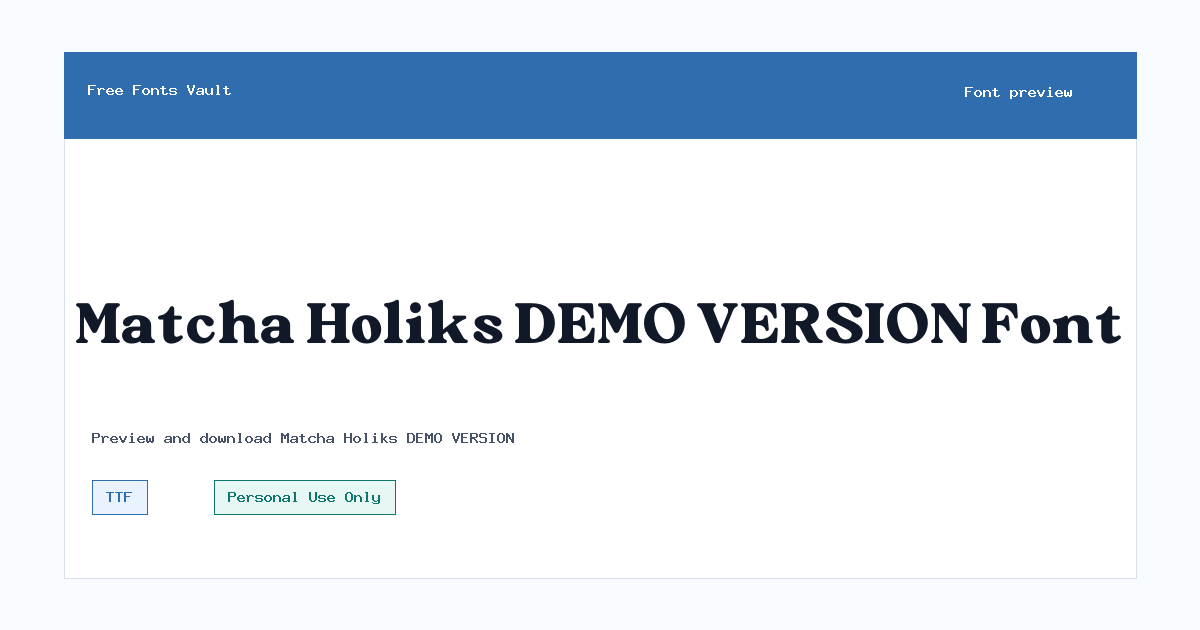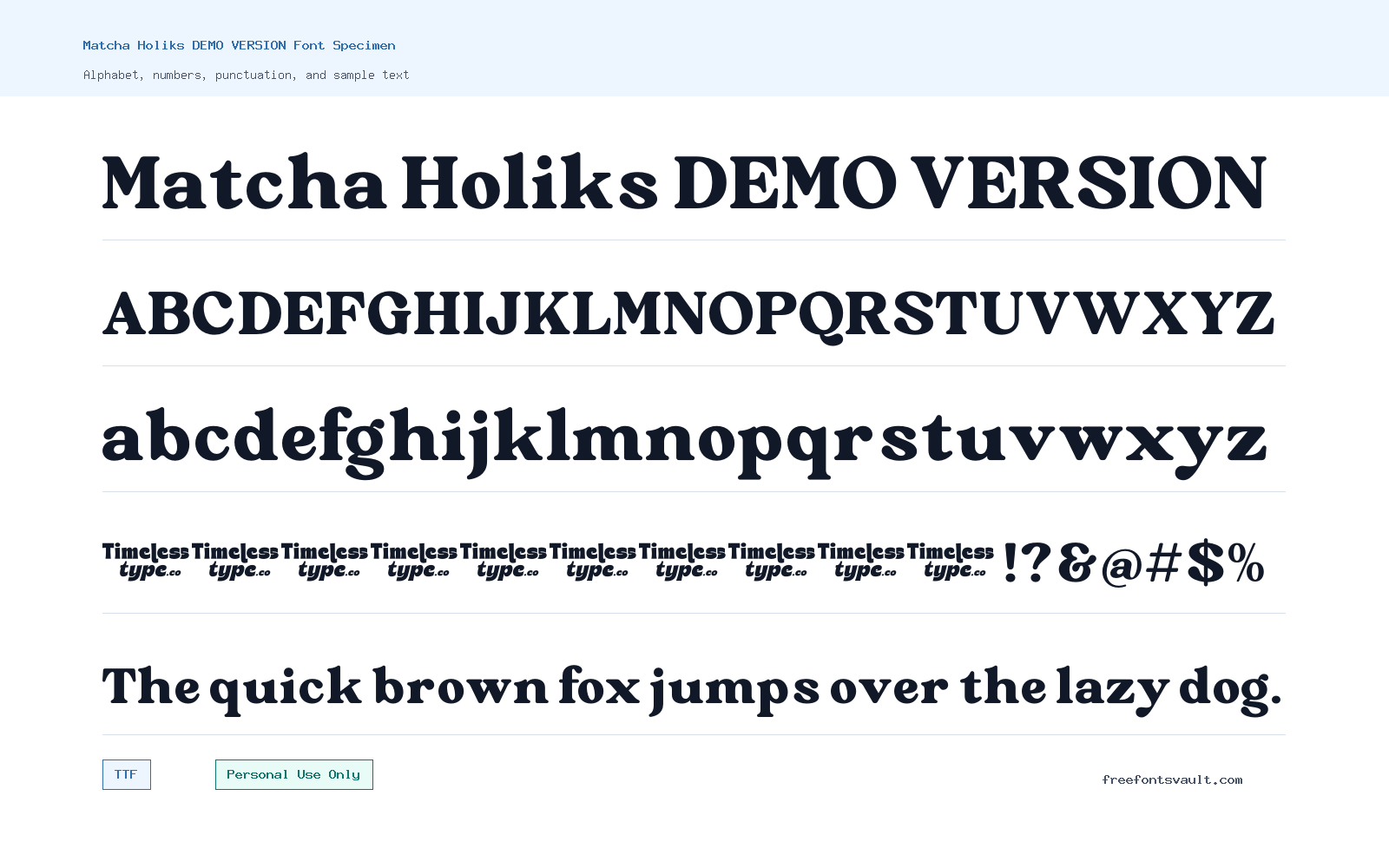
Matcha Holiks DEMO VERSION
Matcha Holiks Demo Version is a serif font offered as a personal-use demo. It is best approached as a display font to test in headings, short titles, branding drafts, invitation concepts, packaging mockups, and social graphics before deciding whether it fits a larger project.
About Matcha Holiks Demo Version
Matcha Holiks Demo Version comes from Heru Utama Putra and TimelessType. The available font file is a regular TTF style, which makes it easy to install and preview in most design apps, word processors, and browser-based font testers. Because this is a demo version, the safest way to use it is for personal layouts, experiments, and non-commercial mockups. Try it at the exact size you plan to use, especially if your design depends on fine serif details, decorative letter shapes, or a polished title treatment.
For visitors comparing fonts, start with short words, brand-style phrases, and mixed-case text. Serif display fonts can feel very different in all caps, title case, and lowercase, so preview a few real examples rather than judging from the name alone. Test common problem pairs such as AV, To, Wa, and double letters, then check numbers and punctuation if your design needs dates, prices, menus, or labels. If you plan to use the font in a logo, product identity, client project, merchandise, advertising, or monetized content, do not rely on the demo license; contact TimelessType or purchase the correct commercial license first.
• Serif demo font suited to testing short display text and design concepts.
• Personal title designs, mood boards, invitation drafts, and social post mockups.
• Testing serif display lettering for logos, packaging concepts, labels, and editorial-style headings before licensing.
The designer is listed as Heru Utama Putra, with TimelessType listed as the foundry. The designer/foundry website is TimelessType.co.
Who designed Matcha Holiks Demo Version?
The designer is listed as Heru Utama Putra, and the foundry is listed as TimelessType.
What kinds of projects should I test it with?
Try it first in short display settings such as headings, names, invitations, packaging drafts, social graphics, and logo concepts. Check readability and spacing with your own words before committing to a layout.